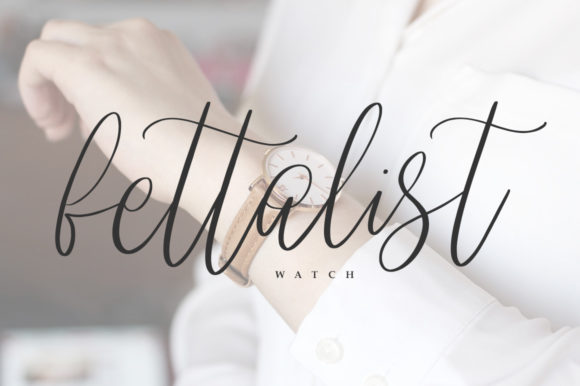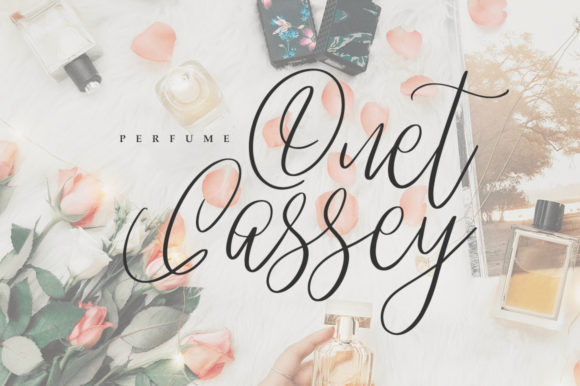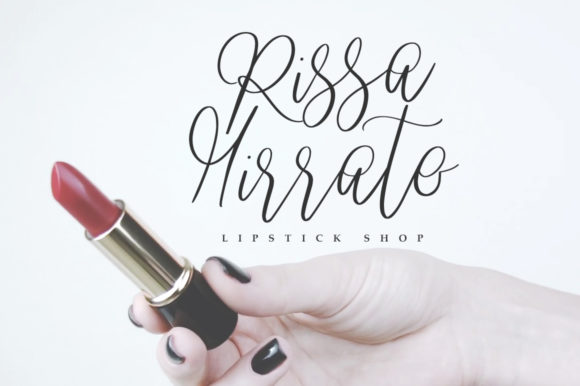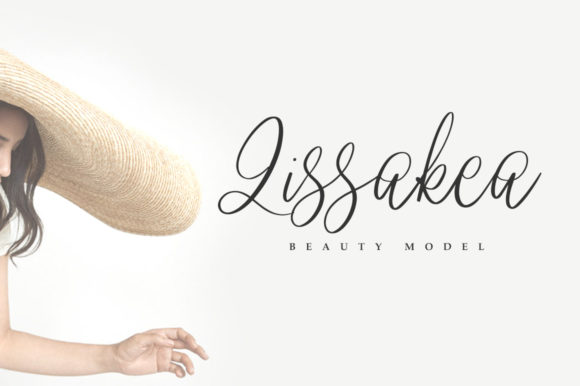
Introduction to Rossa Font
Remember that moment when you’re working on a creative project and you’re just about to add the final touches, but you’re missing that one special element to make it truly stand out? That’s where high-quality design resources come in – and that’s exactly what the Rossa Font is designed to do. With its modern and sophisticated script style, this beautiful font will elevate your designs to a whole new level.
Rossa Font
- Unique characteristic: Unique script font style with elegant and modern touch
- Perfect design resource for logos, branding, and typography-based creative projects
Honest Review: Rossa Font
I recently stumbled upon the Rossa Font and I’m excited to share my thoughts on it. As a designer, I’m always on the lookout for high-quality design resources to elevate my creative projects.
What works well: ✨ The Rossa Font offers a sleek, modern design that’s perfect for a variety of applications. The font is highly legible and features a clean, minimalist aesthetic that’s sure to please even the most discerning designers.
Features:
What doesn’t work so well: ⚠️ While the Rossa Font is a great addition to any design resource collection, I did find the font to be somewhat limited in its customization options. Additionally, the font may not be suitable for projects that require a bold, eye-catching font.
Overall, I’m impressed with the Rossa Font and would recommend it to designers looking for a high-quality, modern font for their creative projects.
Rossa Font
Tips for Getting the Most Out of Rossa Font
To get the most out of Rossa Font, use it in conjunction with other design elements such as images and graphics. You can also experiment with different font sizes and colors to create a unique look.
Rossa Font is ideal for use in creative projects such as brochures, flyers, and business cards. It’s also a great choice for use in digital projects such as websites and social media graphics.